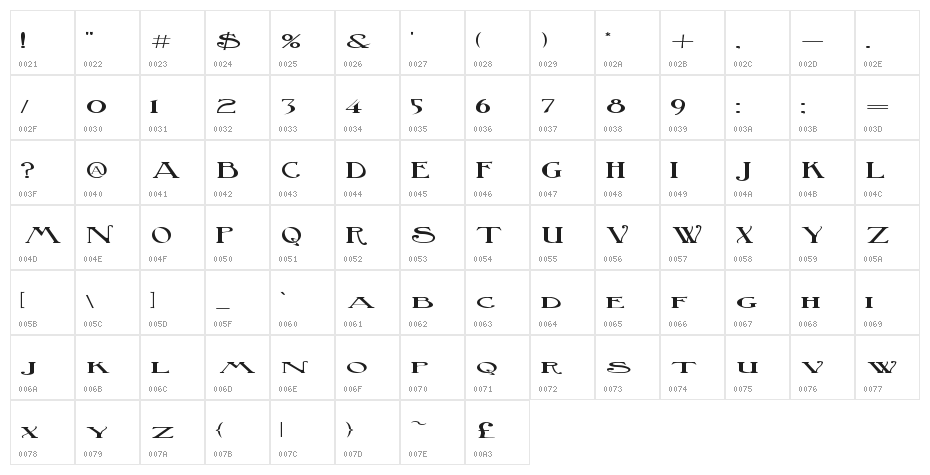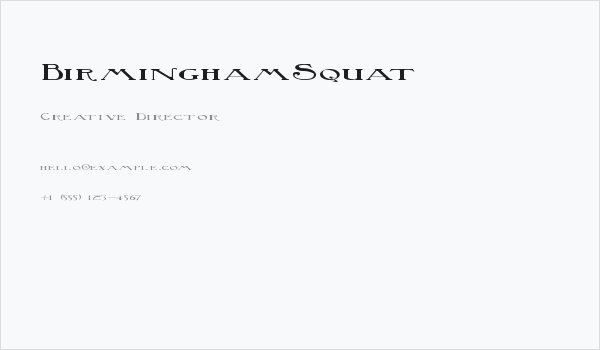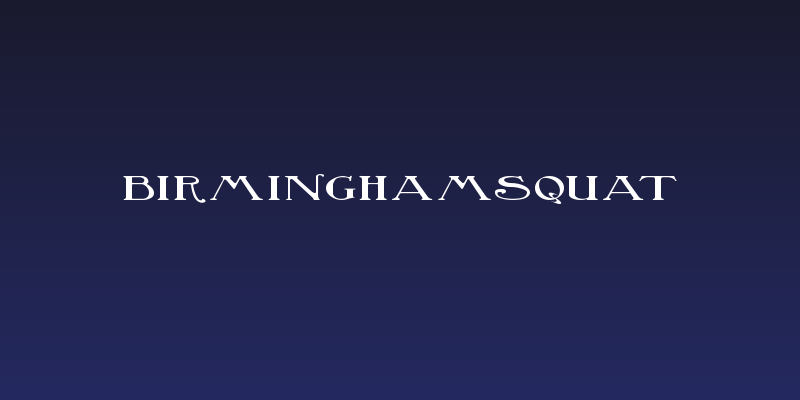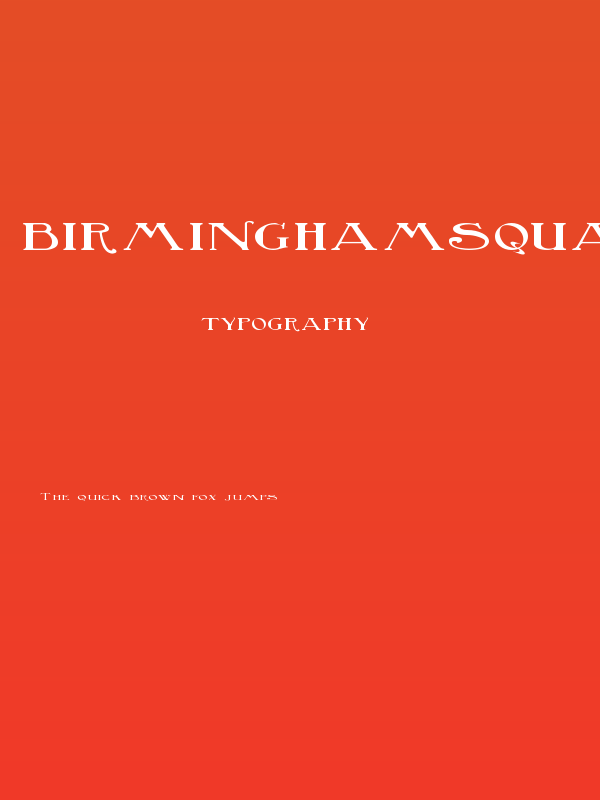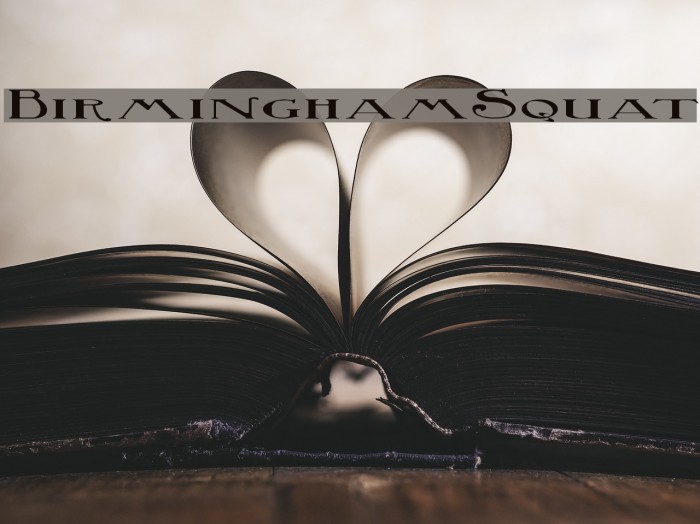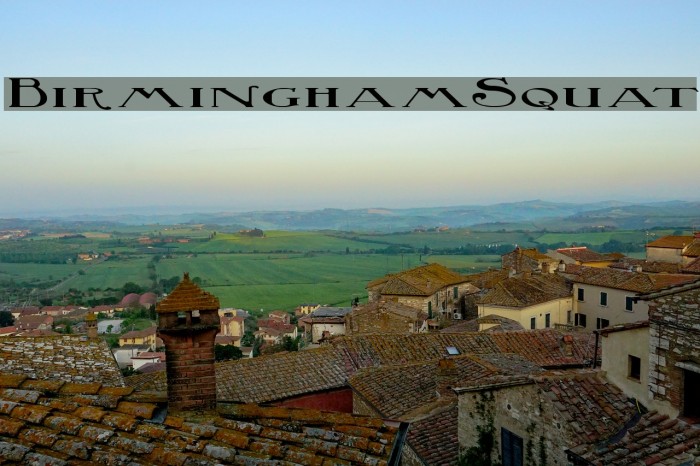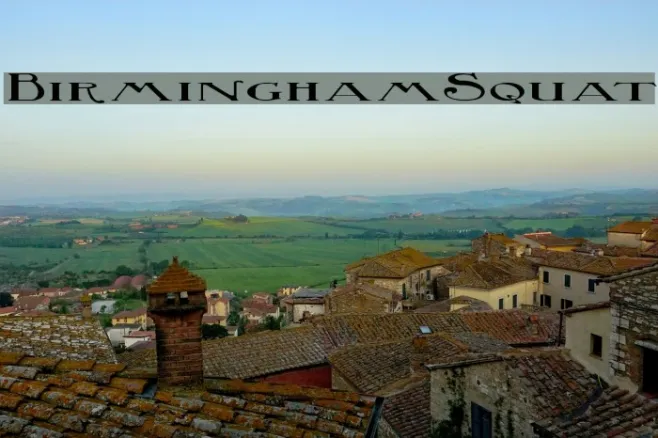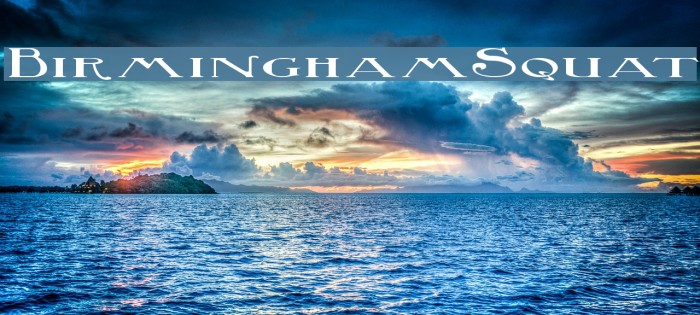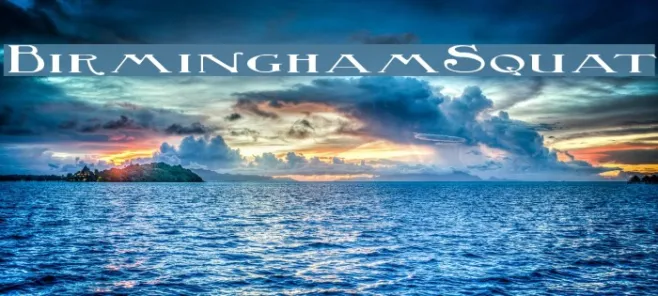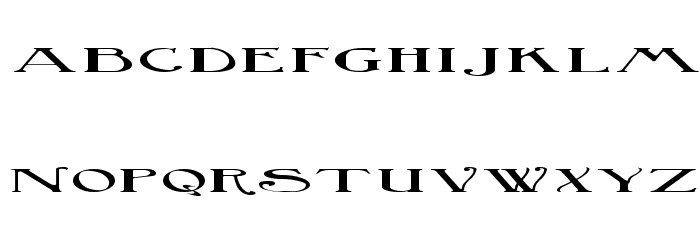
BirminghamSquat Font
BirminghamSquat Description
This font exhibits a unique blend of classic and modern elements, characterized by its sharp serifs and distinct angular cuts. The uppercase letters are bold and commanding, with a slight inclination that adds a dynamic feel. The lowercase letters maintain a consistent style, offering a harmonious balance with the uppercase. Numbers are crafted with the same attention to detail, ensuring readability and aesthetic appeal. Special characters are elegantly designed, complementing the overall style. The font's high contrast in stroke thickness enhances its visual impact, making it suitable for attention-grabbing designs.
| Proposed Projects | Ideal for branding, headlines, posters, and editorial design where a strong, distinctive presence is desired. |